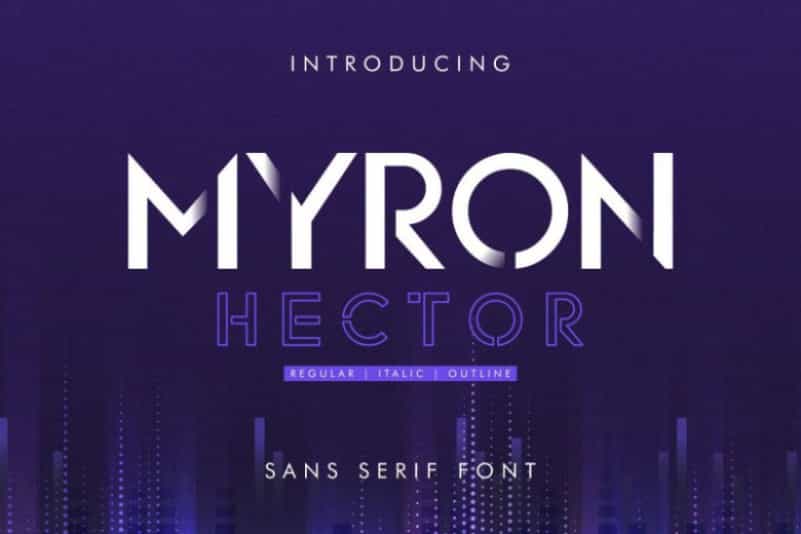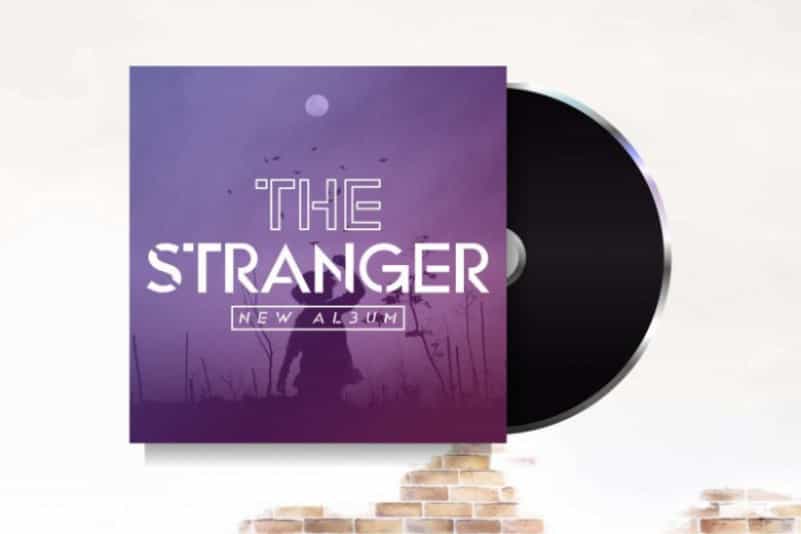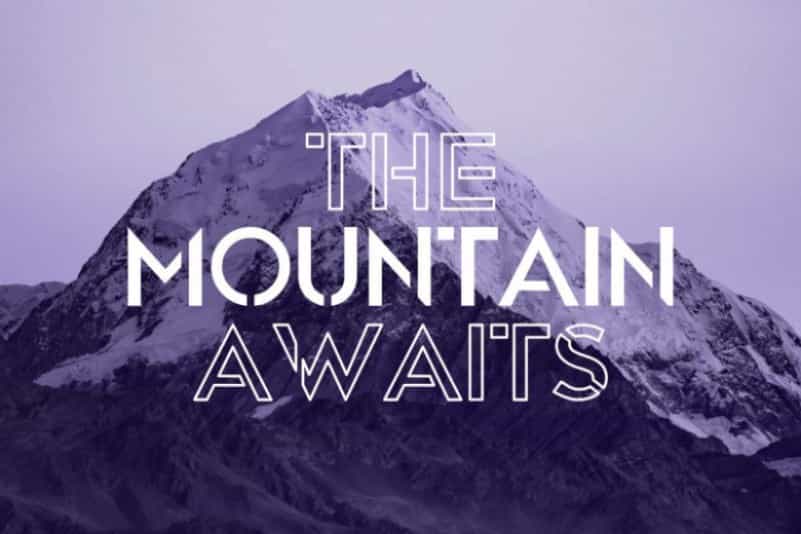
Myron Hector is a sans serif font. There are 3 styles in it—Regular, Italic and Outline. All the diacritics you can possibly imagine are included when you use this font. And these characters are sorted and kerned perfectly at this point. The theme style of this font is elegant, luxury, futuristic, gold, modern, stylish, sophisticated and minimal.